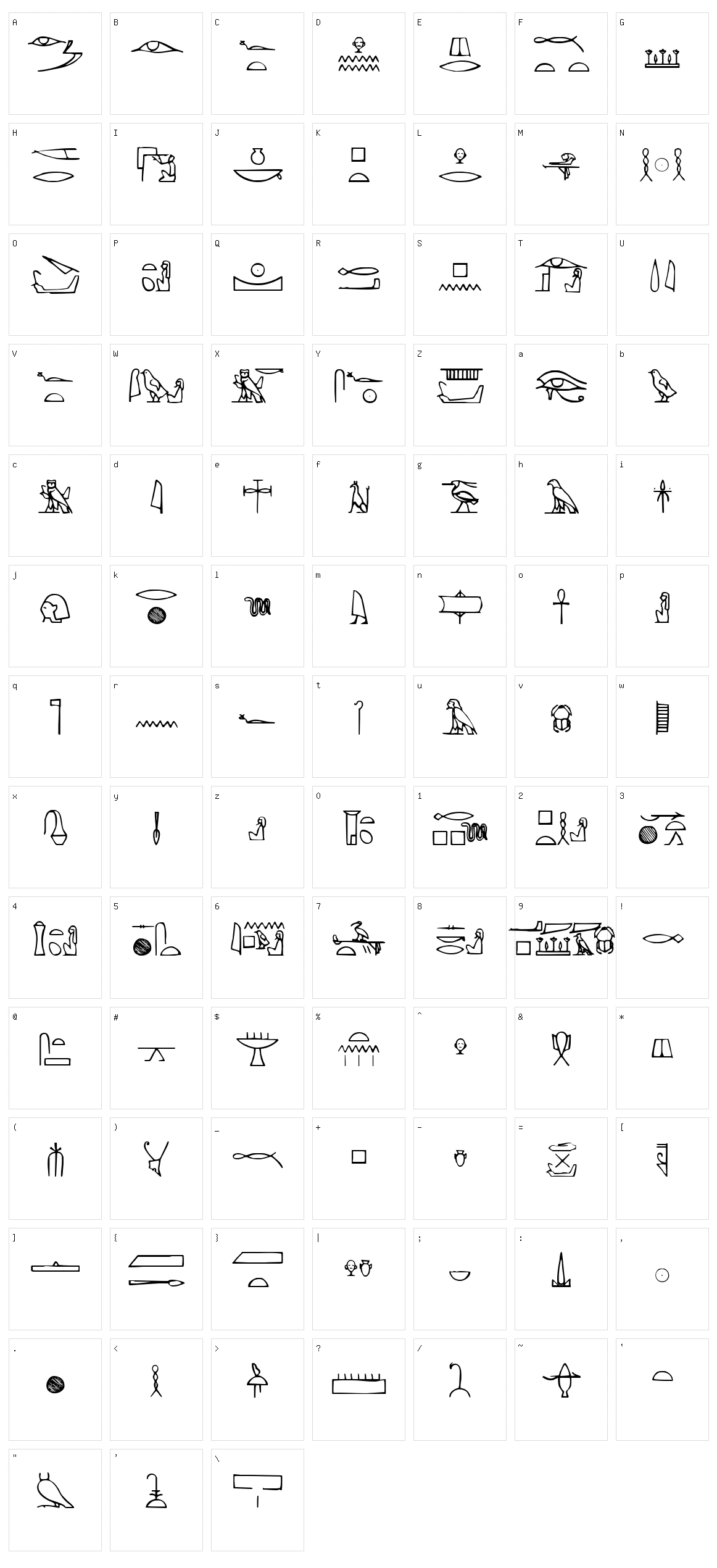
Yiroglyphics
Designed by: Iconian Fonts
Category: Ancient
This is a dingbats font of over 90 Egyptian-like hieroglyph symbols. Use of a character map program, such as Windows' Character Map, will be very helpful in exploring and using this font.